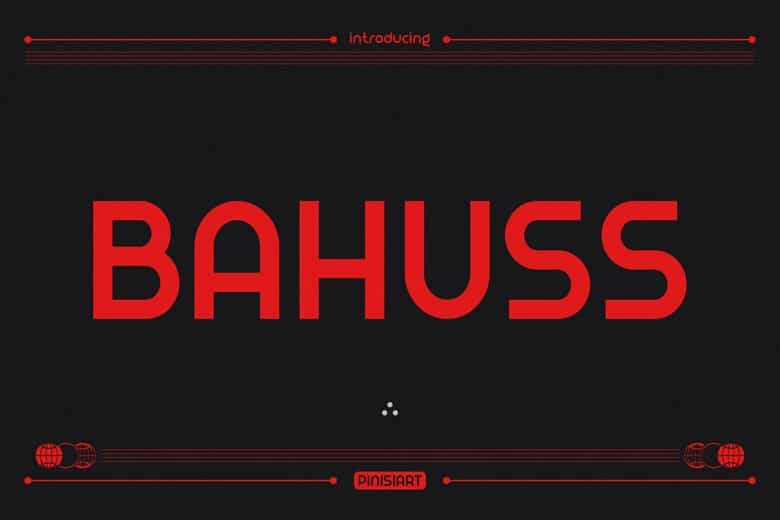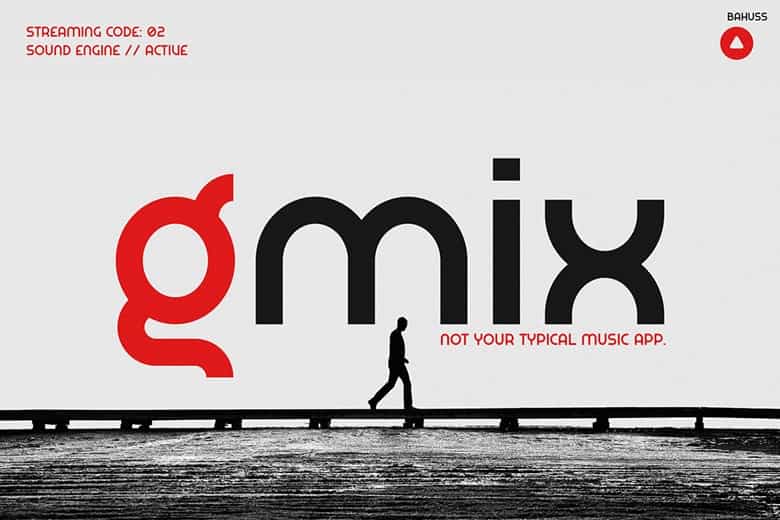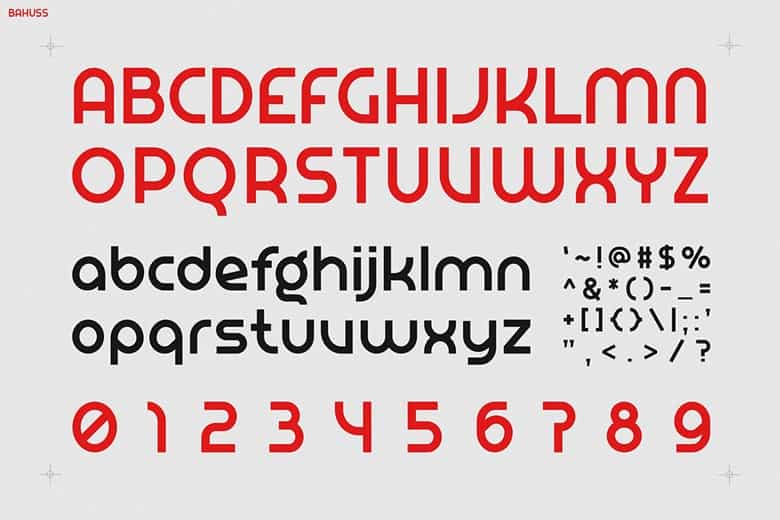
Bahuss is the ideal font to use when creators need to make loud proclamations in a slim, space-age manner. This font stands out even at the initial look. The geometric shapes and the harsh modular construction make an immediately recognizable visual rhythm. It appears bold and confident, but, in fact, it represents the high level of structuring the space, which is ideal in the digital environment where clarity and creativity should always correlate.